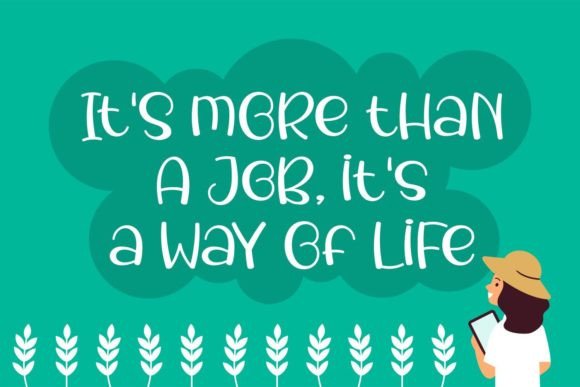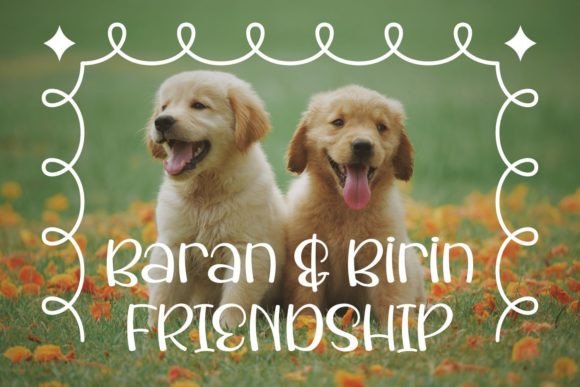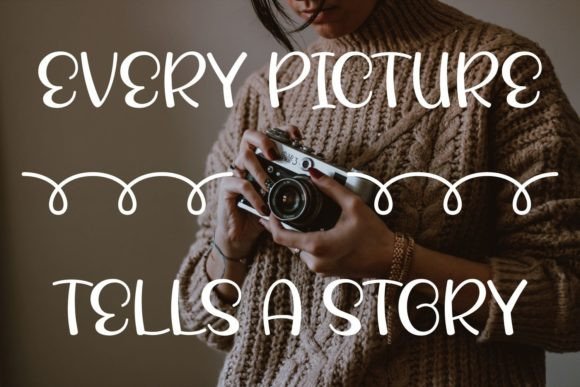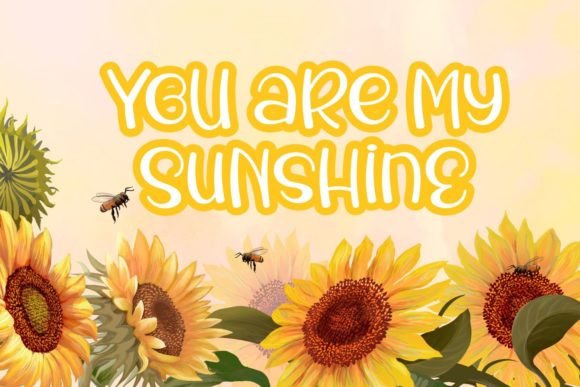
Rasmini Widuri Font
About Rasmini Widuri Font
Rasmini Widuri is a delightful and friendly handwritten font that exudes a sense of fun and playfulness. Whether you’re working on cartoon-related designs, children’s games, quotes, titles, brand names, book covers, posters, or any creative endeavor that calls for a touch of joy, Rasmini Widuri proves to be an excellent choice.
The font’s whimsical and friendly nature makes it versatile across various design contexts. Its handwritten style adds a personal and approachable feel, making it particularly suitable for projects targeting a younger audience or any design that aims to convey a lighthearted and joyful atmosphere.
For cartoon-related designs, Rasmini Widuri becomes a vibrant and engaging choice, infusing characters and scenes with a lively energy. In children’s games, the font adds a touch of friendliness to enhance the overall user experience. Quotes and titles come to life with the font’s playful charm, making them visually appealing and memorable.
The versatility of Rasmini Widuri extends to brand names, book covers, posters, and beyond. It’s a font that effortlessly brings a sense of joy to your creations, making them stand out and leave a positive and lasting impression on your audience.
Incorporate Rasmini Widuri into your design projects and witness how it transforms ordinary creations into vibrant and friendly expressions. Let it be the font that adds that touch of joy to your designs, making them not only visually appealing but also delightful and engaging.